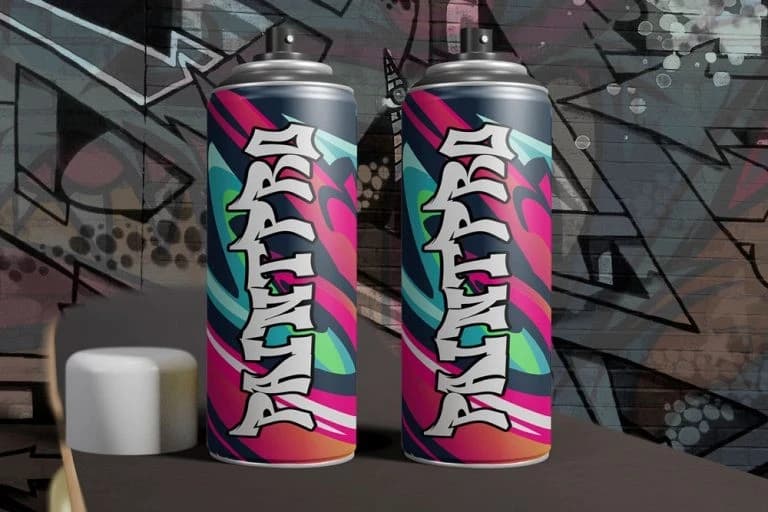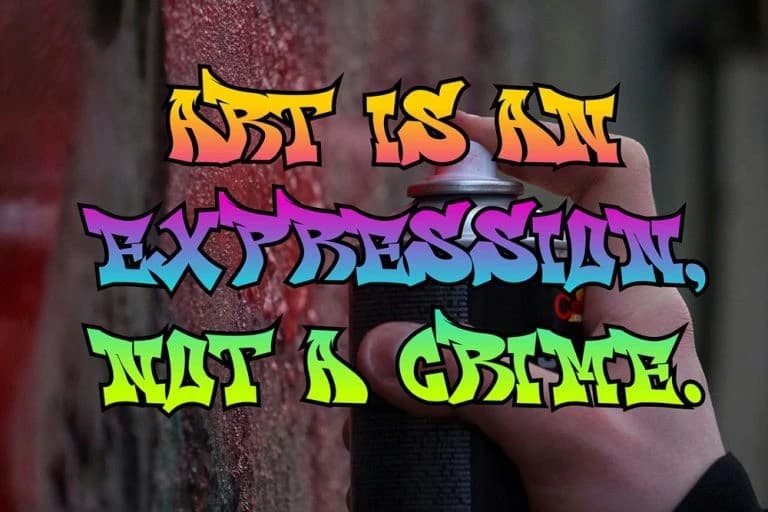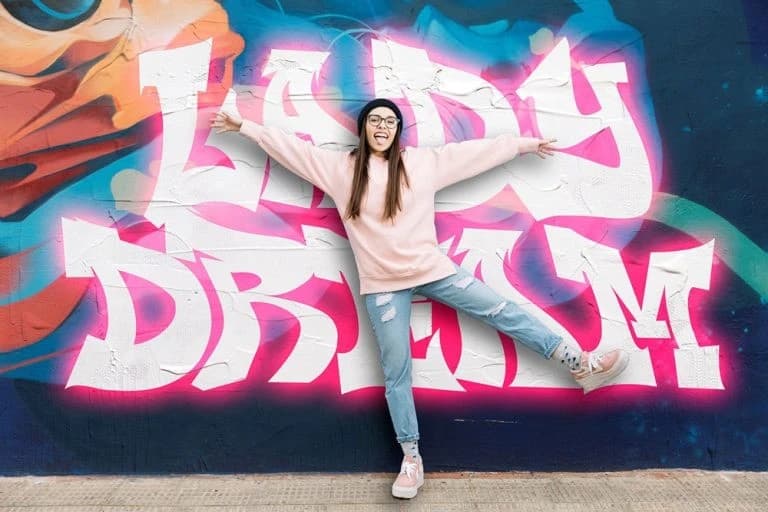
Wild Graf Display Font
Wild Graff Display Font is a bold edgy graffiti font inspired by authentic street art culture, underground tagging, urban wall murals, and modern graffiti typography trends. Designed with aggressive letterforms, raw street energy